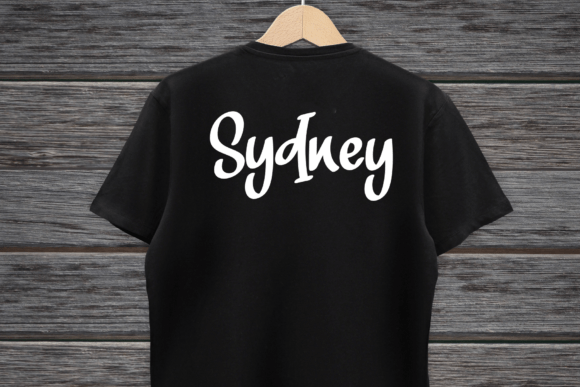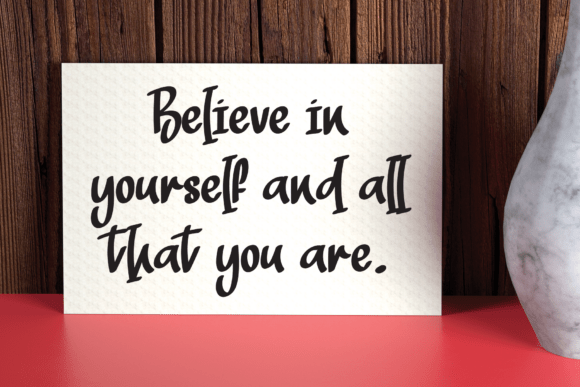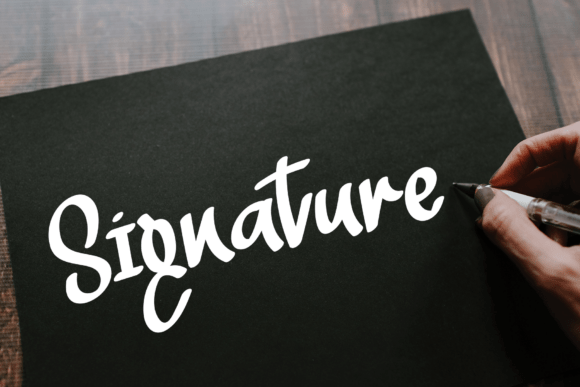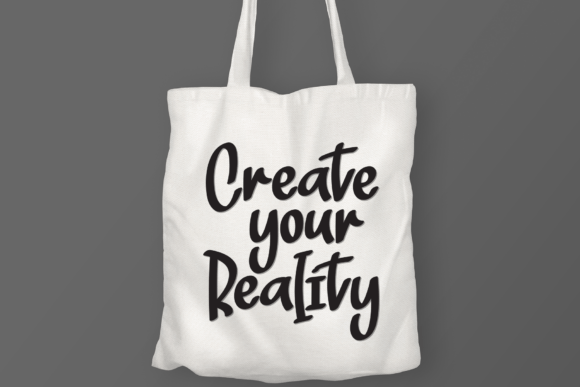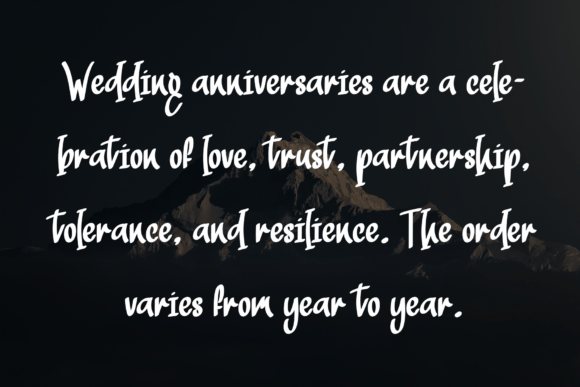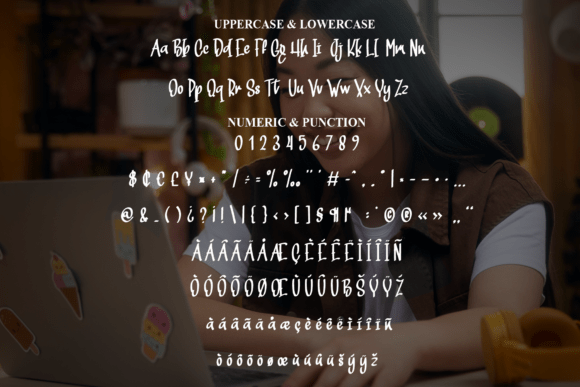
Introducing Happy Designer Font: The Perfect Choice for Whimsical Designs
Are you looking for a font that can add a touch of whimsy and playfulness to your design projects? Look no further than the Happy Designer Font! This charming and endearing handwritten display font is designed to exude a delightful simplicity that’s sure to capture the hearts of designers and crafters alike.
A Font that Radiates Joy and Friendliness
The Happy Designer Font is more than just a font – it’s a personality. It’s bubbly, playful, and friendly, making it the perfect choice for crafting elegant wedding invitations, personalized greeting cards, or any design project that requires a touch of whimsy. With its sweet and approachable style, you can instantly capture a sense of joy and fun in your designs.
Wedding invitations and greeting cards are special occasions that deserve a font that’s just as special. The Happy Designer Font is designed to add a touch of elegance and sophistication to your wedding invitations, while its playful vibe makes it perfect for greeting cards that need to stand out from the crowd.
Imagine creating beautiful wedding invitations that set the tone for a magical and unforgettable day. With the Happy Designer Font, you can add a personal touch to your invitations that will make them truly special. And for greeting cards, this font is perfect for creating personalized and heartfelt messages that will make your loved ones feel special.
The Happy Designer Font is versatile and can be used for a wide range of design projects. Whether you’re creating:
- Personalized greeting cards and gift tags
- Branding and packaging materials
- Signs and banners
this font is sure to add a touch of whimsy and playfulness to your designs.
Why Choose Happy Designer Font?
So, what makes the Happy Designer Font so special? Here are just a few reasons why designers and crafters love this font:
- Unique and eye-catching: The Happy Designer Font is a one-of-a-kind font that’s sure to grab attention.
- Easy to read: Despite its playful vibe, this font is easy to read and understand, making it perfect for body text and headlines.
- Customizable: You can customize the font to fit your design needs, from adjusting the size and color to adding effects and textures.
- Support for multiple languages: The Happy Designer Font supports multiple languages, making it perfect for designers and crafters around the world.
Get Creative with Happy Designer Font
Whether you’re a professional designer or a crafter, this font is sure to inspire you to create beautiful and unique designs that capture the hearts of your audience.
In conclusion, the Happy Designer Font is a charming and endearing handwritten display font that’s perfect for designers and crafters who want to add a touch of whimsy and playfulness to their design projects. With its sweet and approachable style, this font radiates a heartwarming and playful vibe that’s sure to capture the hearts of your audience.